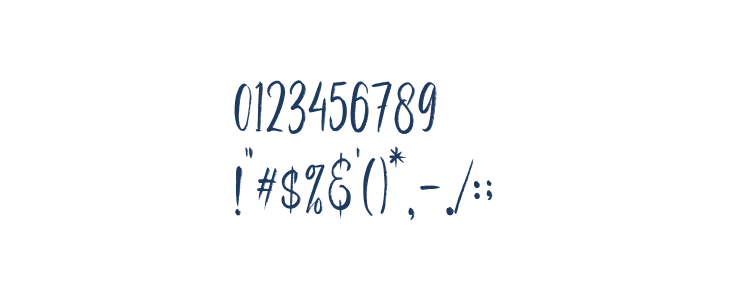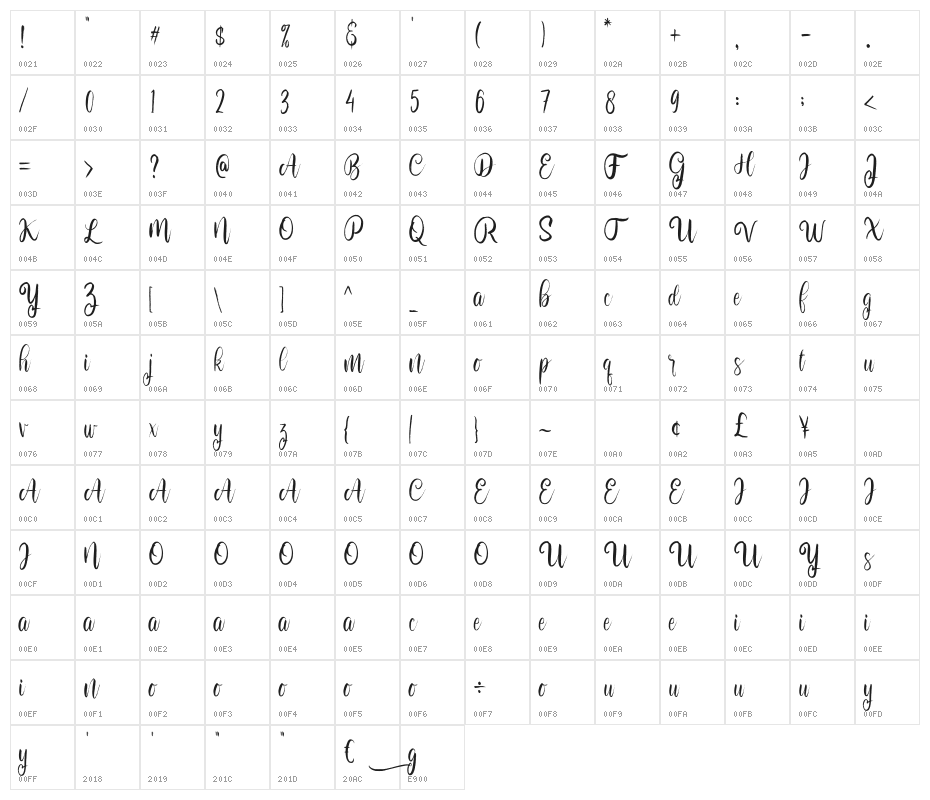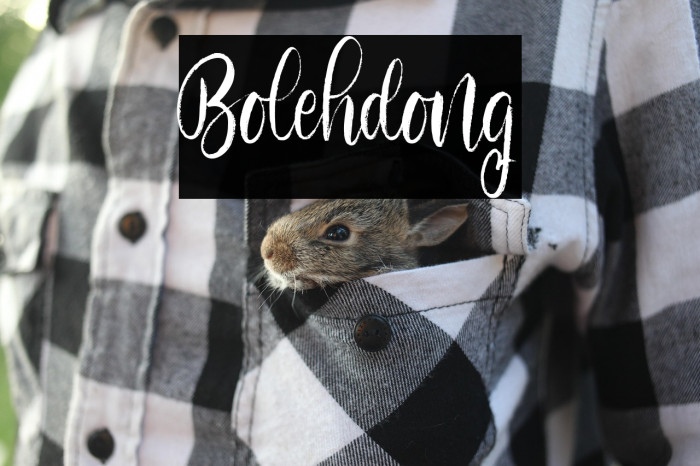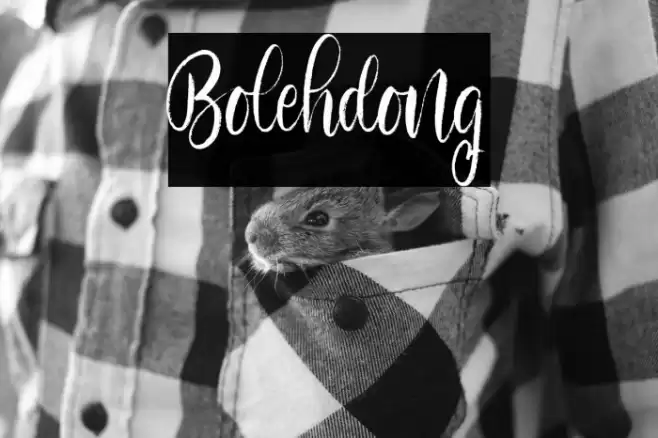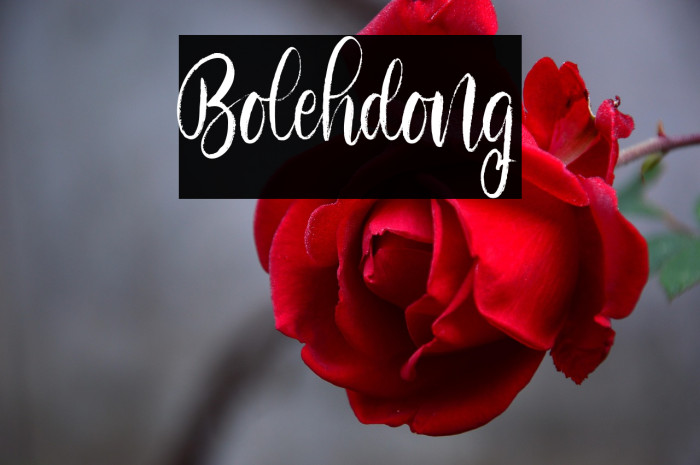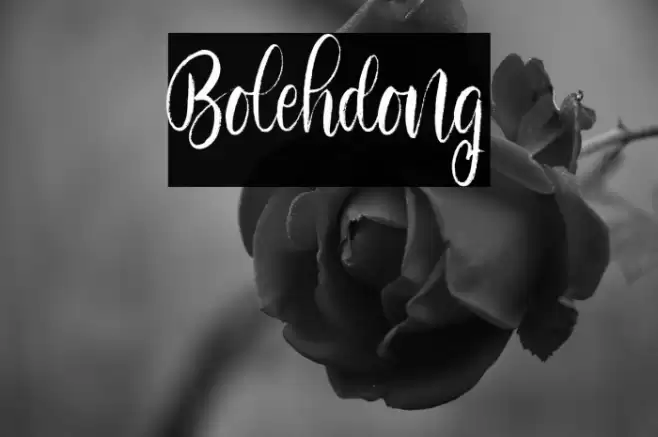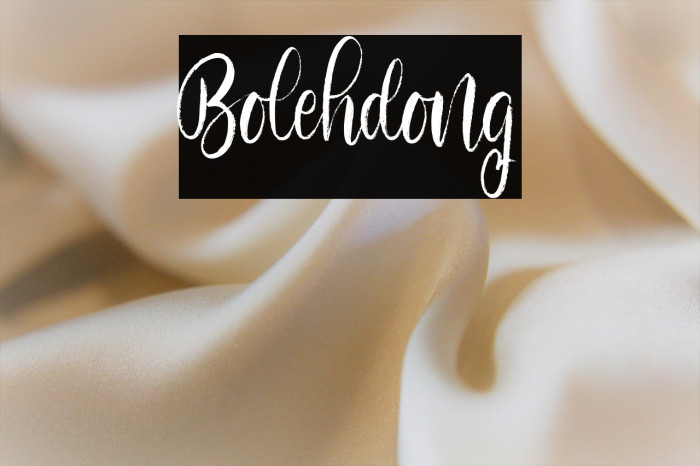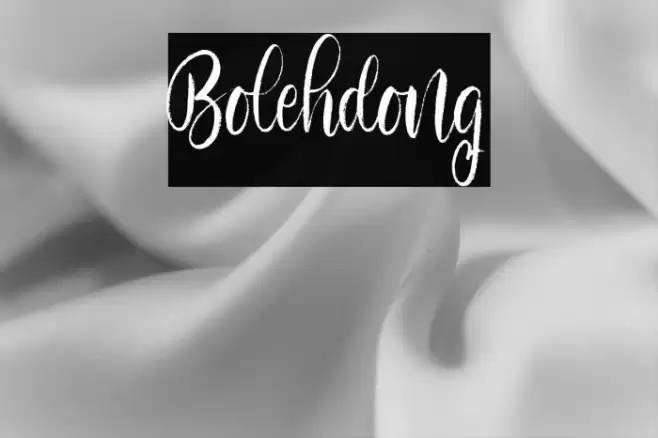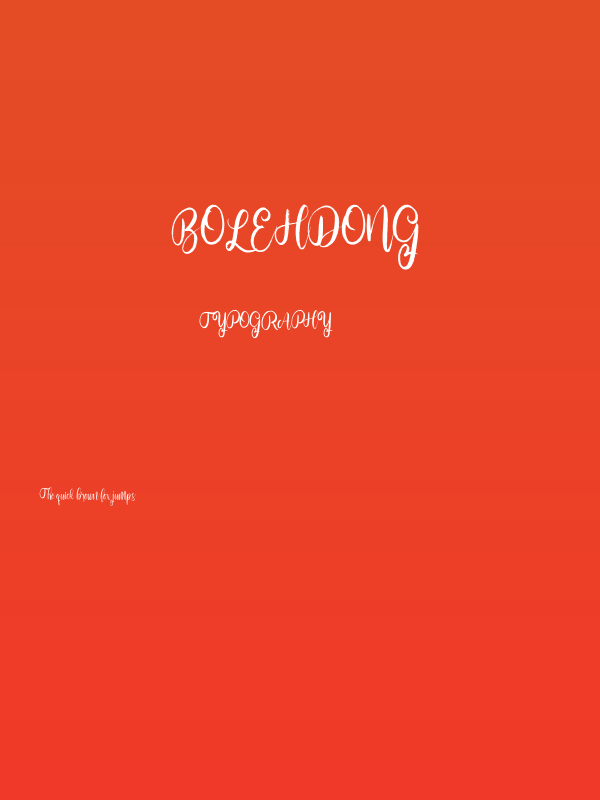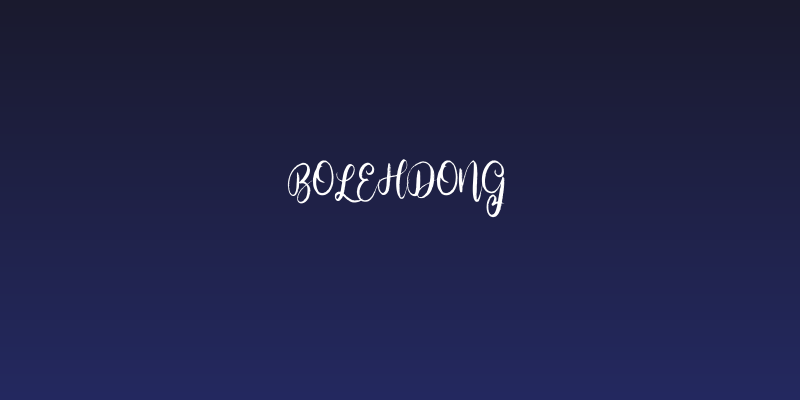
Bolehdong Font
Bolehdong Description
This font features a lively and expressive handwritten style, characterized by its fluid and dynamic strokes. The letters are interconnected, giving a sense of continuity and flow, reminiscent of cursive handwriting. The uppercase letters are bold and prominent, while the lowercase letters maintain a consistent rhythm with slightly varying heights and angles. The numerals and special characters are crafted with the same energetic flair, making them stand out. This font exudes a playful yet elegant vibe, suitable for creative and artistic projects.